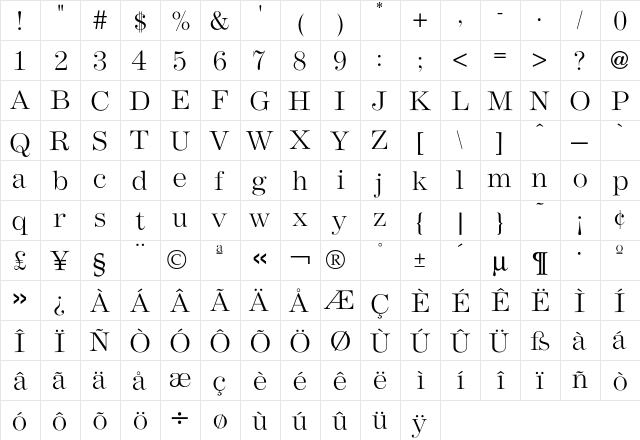
Andrich Minerva
Design Context for Andrich Typeface
Andrich is a composed and adaptable typeface that performs quietly and consistently across a wide range of design contexts.